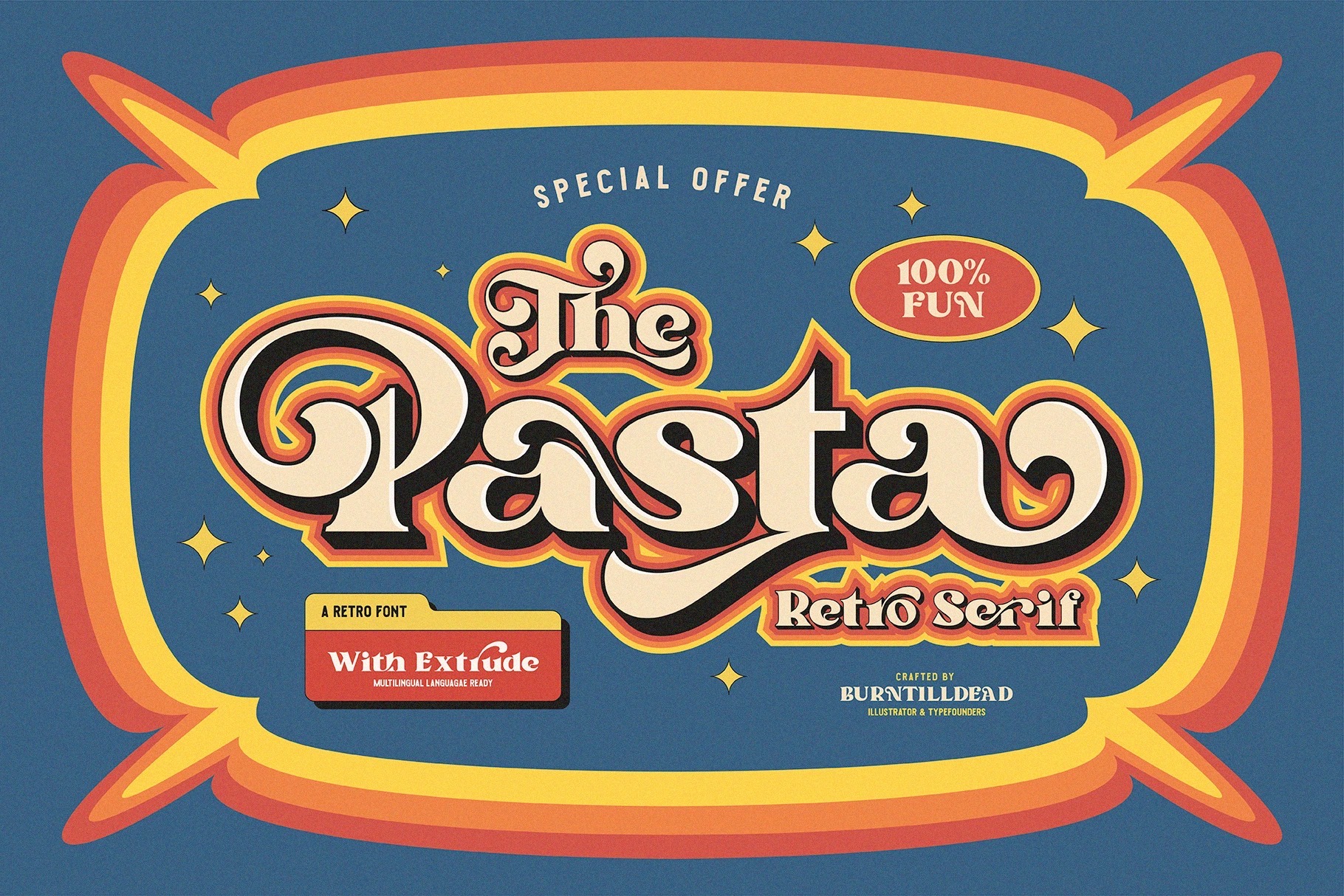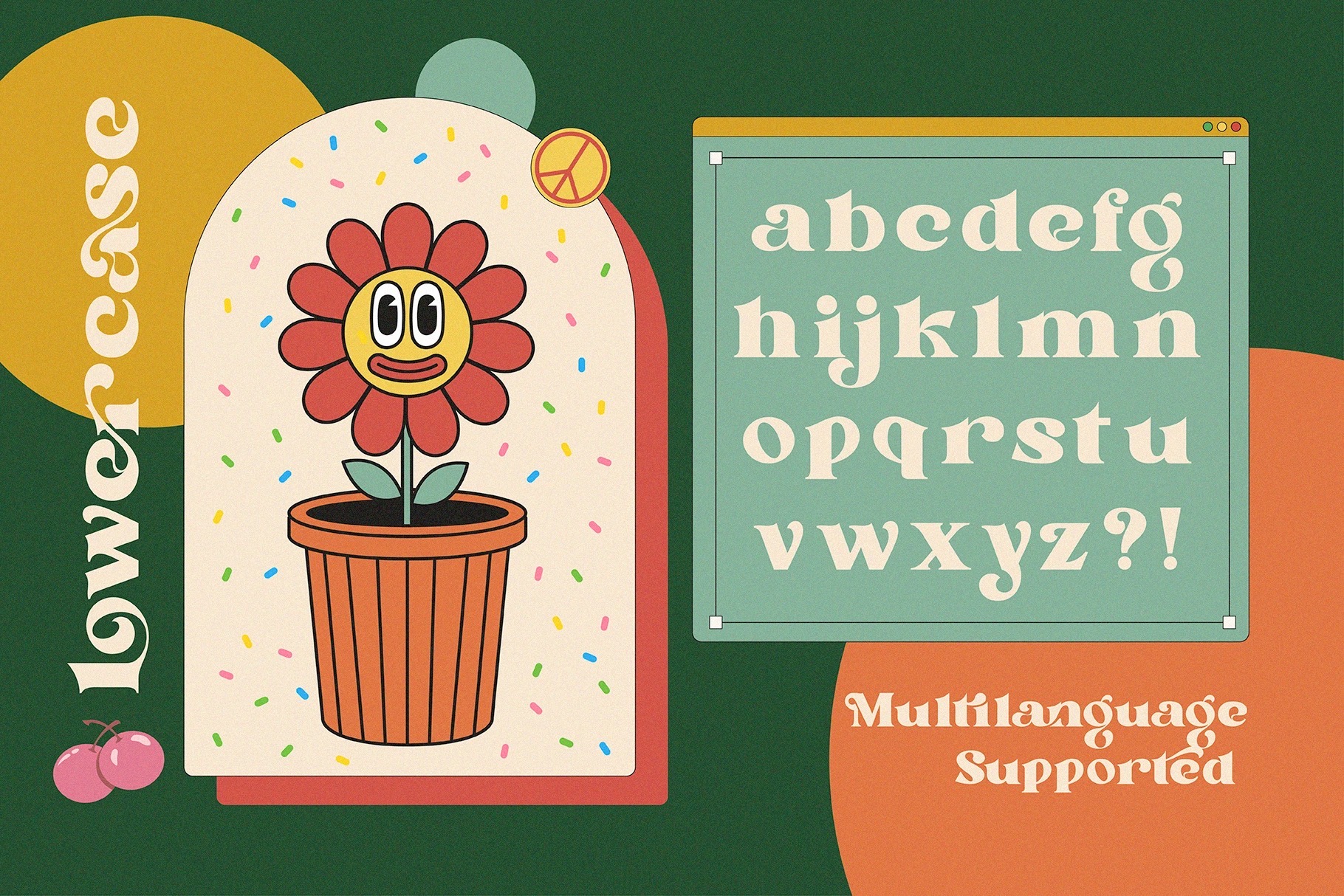
Say hi to “Pasta” retro serif typeface. Inspired by 70’s design styles, a good decade where we saw many calm colors with groovy, bold, Stylish & 3 Dimensional logo display.
This font is very easy to use with 100 ligatures, many stylistic alternates (ss01-ss05) & powered with opentype feature. The font really bring a good statement for your logo design and can be the image of a design.